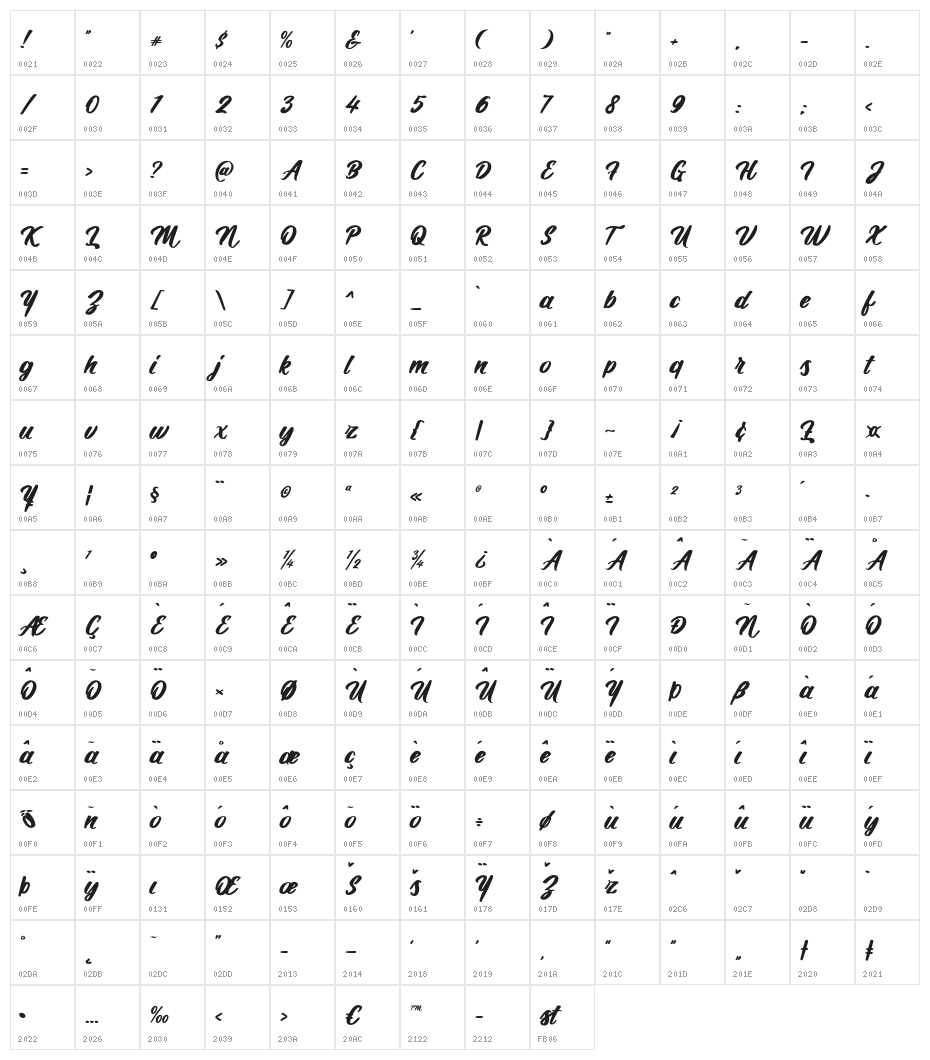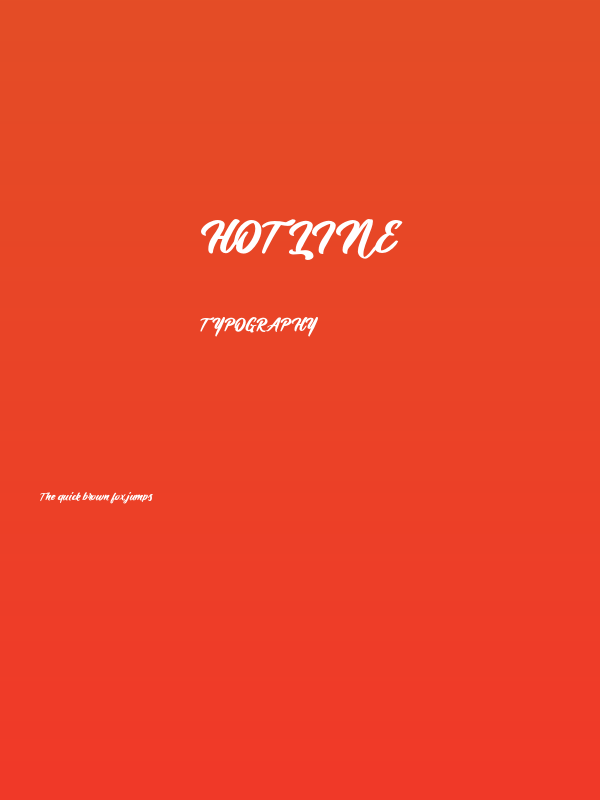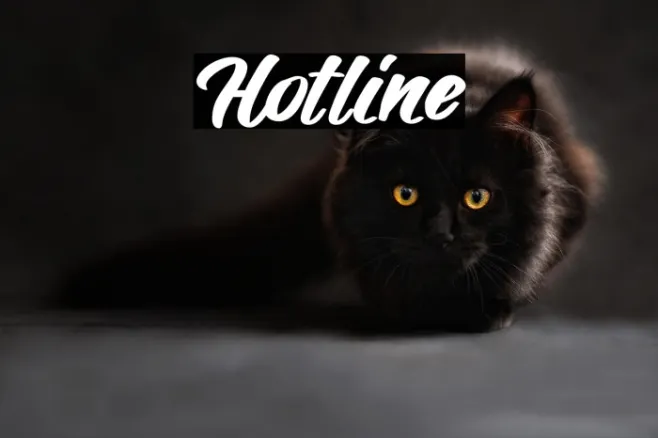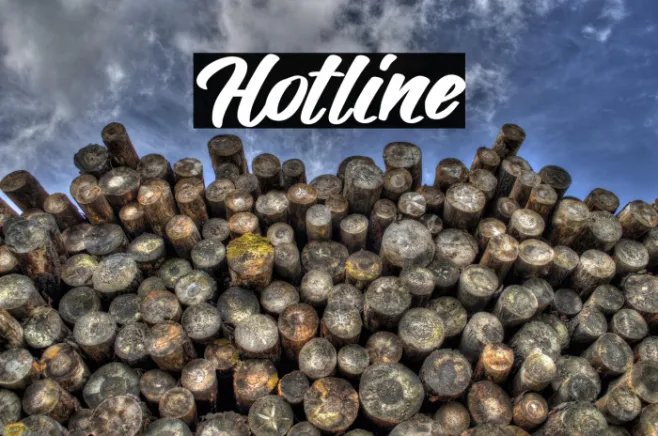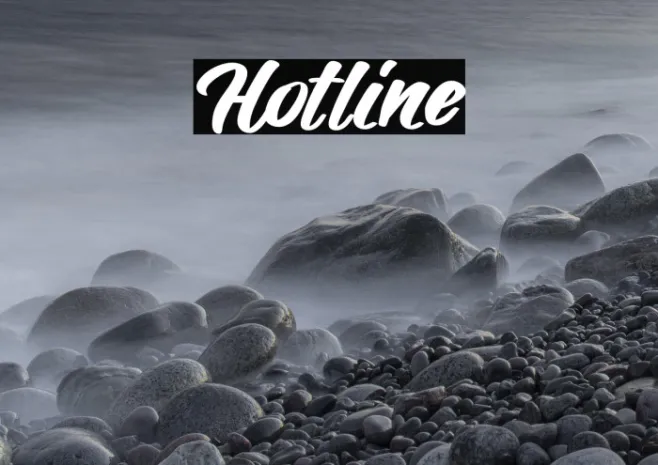
Hotline Font
Hotline Description
This font features a bold, cursive style with a strong emphasis on fluidity and elegance. The letters are interconnected, creating a seamless flow that mimics natural handwriting. The uppercase characters are slightly larger and more pronounced, while the lowercase letters maintain a consistent size and shape. Numbers and special characters are designed to match the overall aesthetic, ensuring uniformity across all text. The strokes are thick, providing a high contrast that enhances readability and adds a touch of sophistication. This font is ideal for projects that require a personal, yet professional touch.
| Proposed Projects | Ideal for branding, invitations, greeting cards, and logo design. |